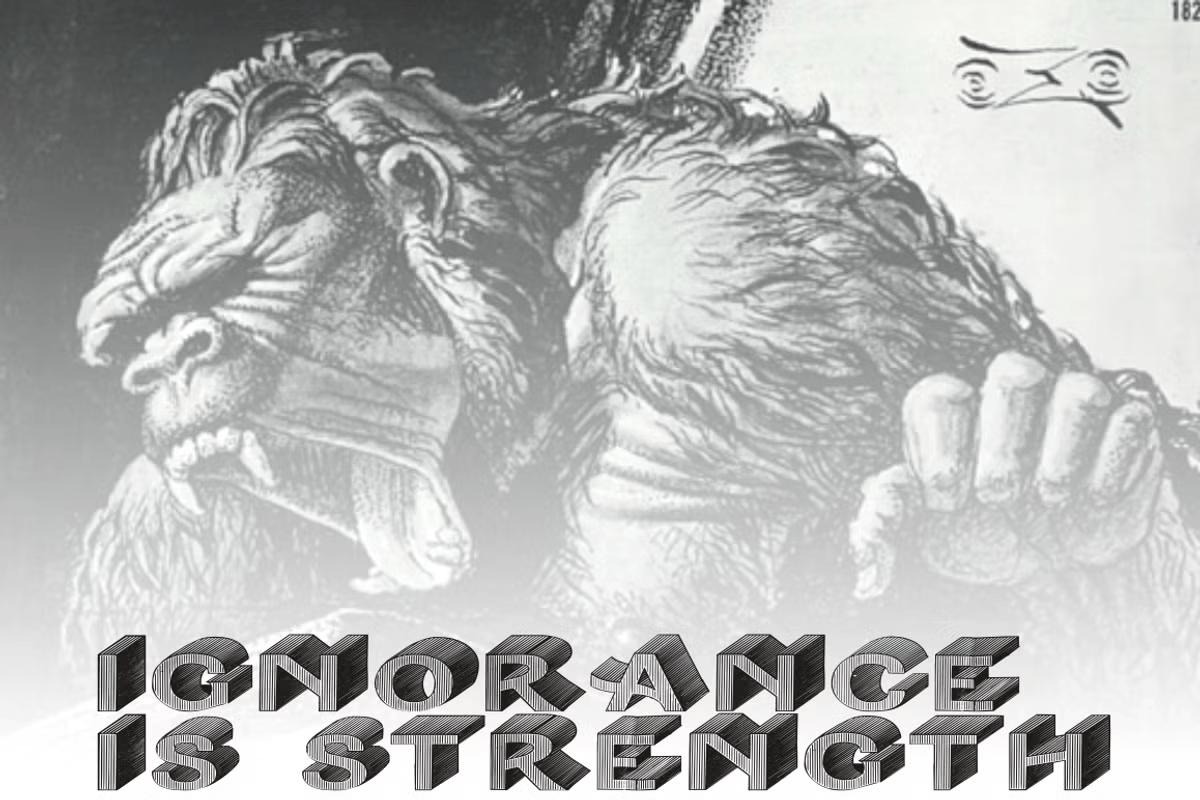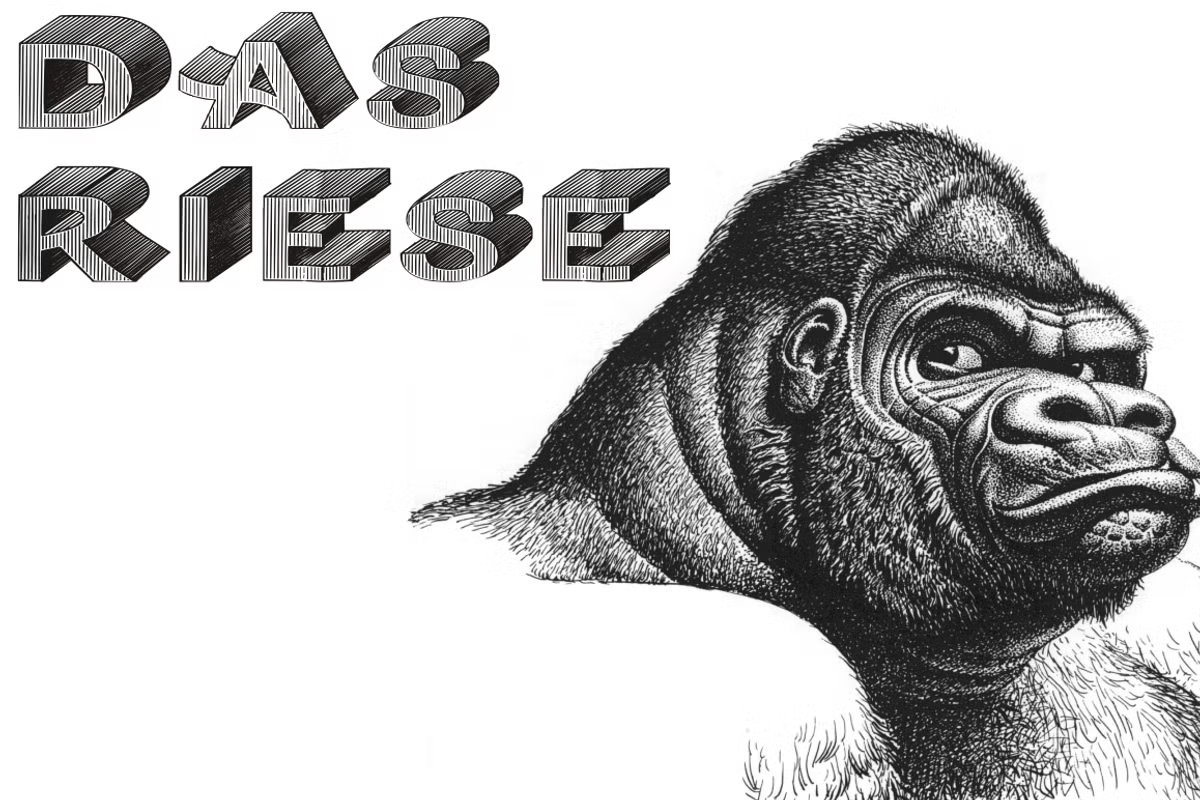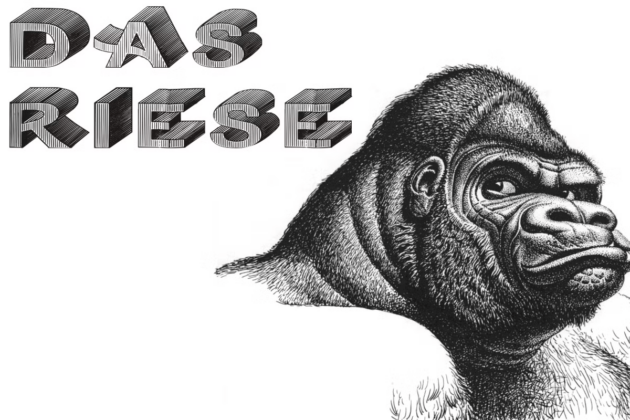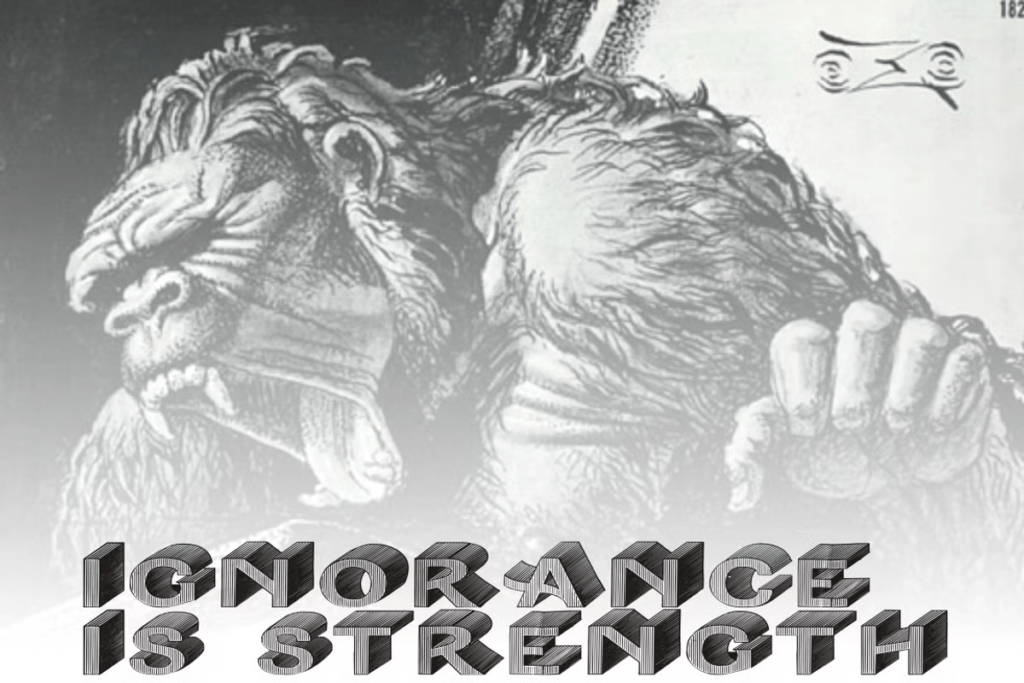
Das Riese
About Das Riese
Das Riese, a type specimen by the most productive Brazilian type foundry, Intellecta Design, is a mix of victorian and art deco influences. A beautiful display type for tiling with uppercases only. It's shadows and volumes refer to pre-modern age…